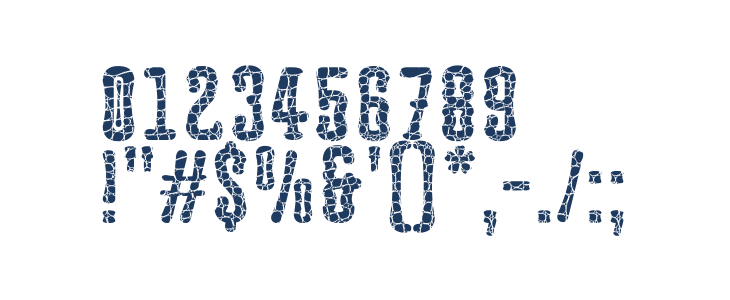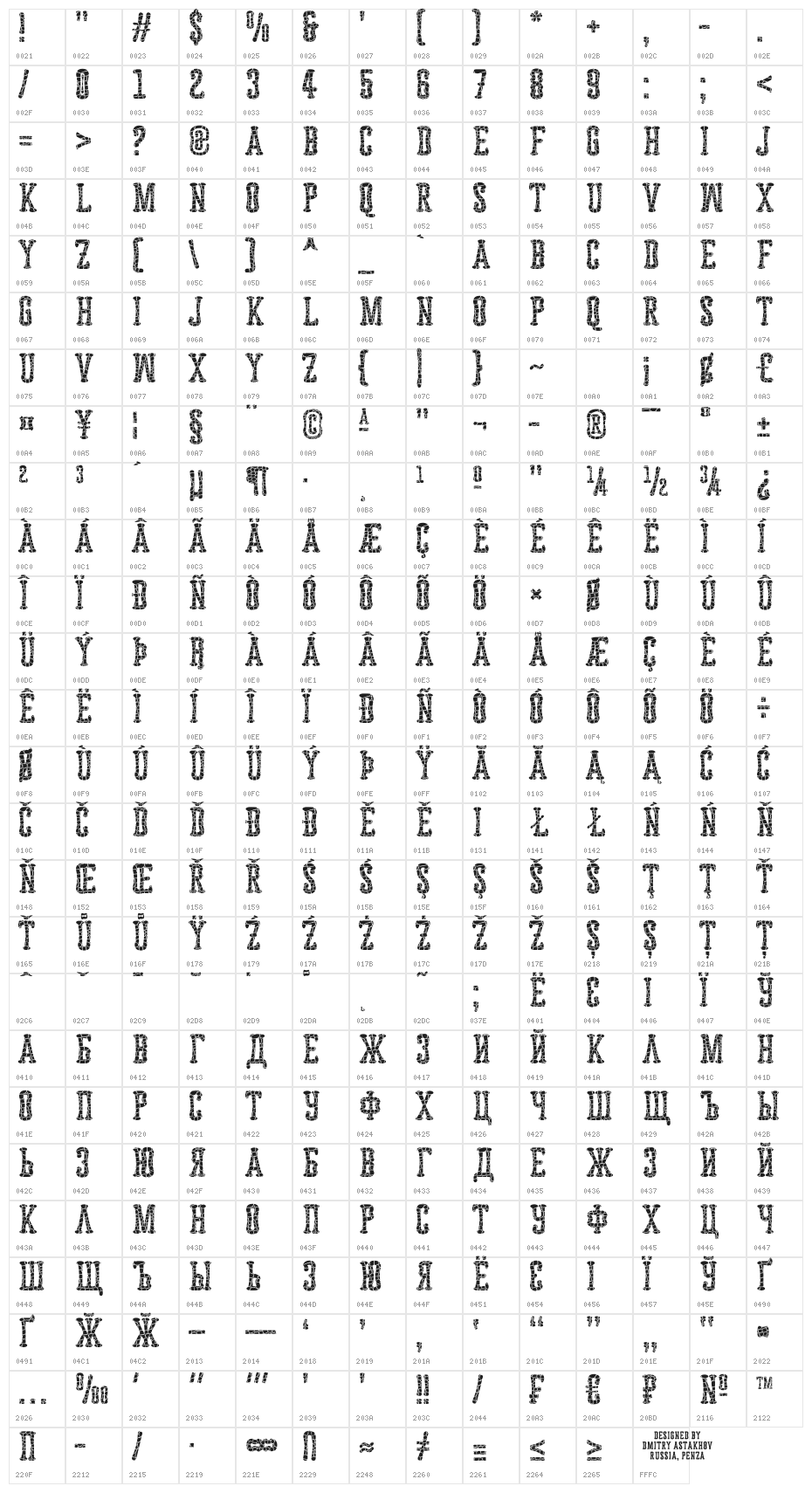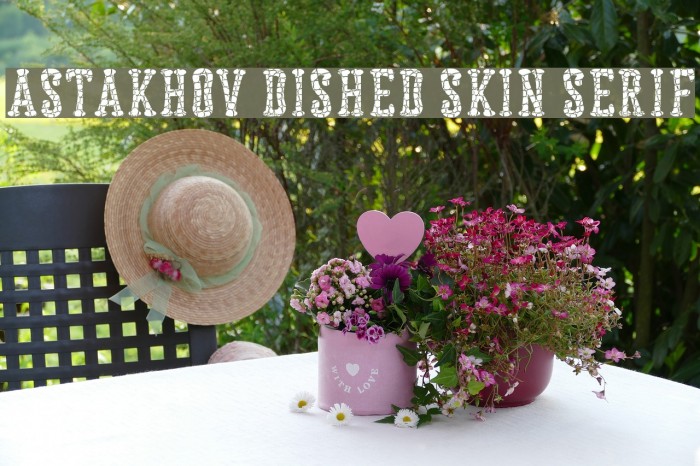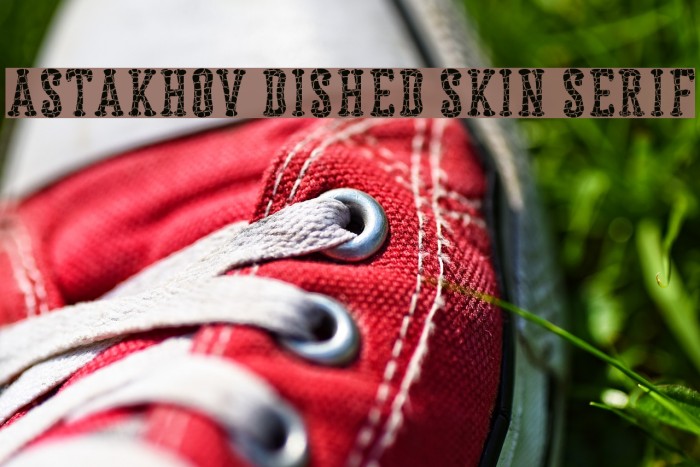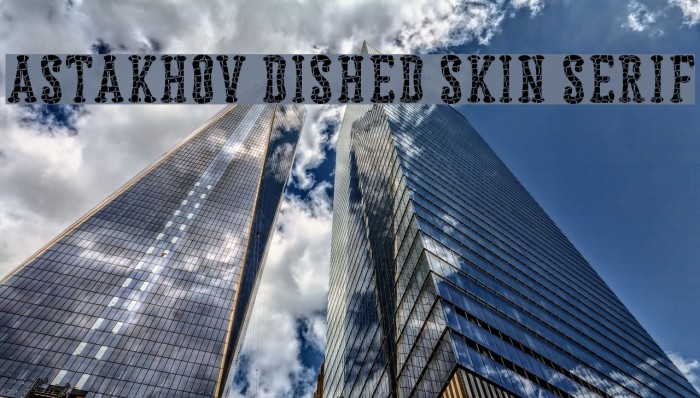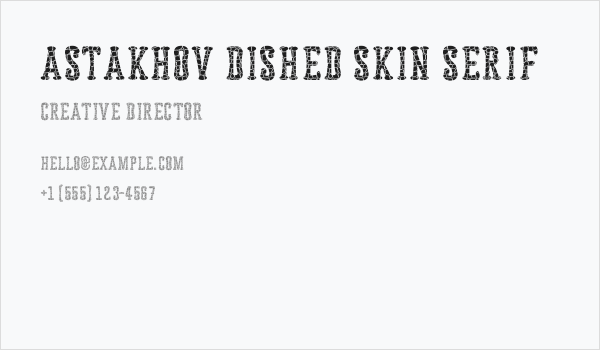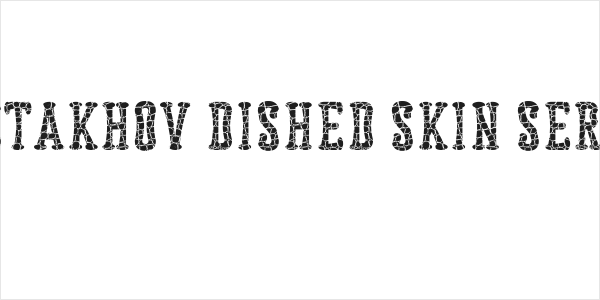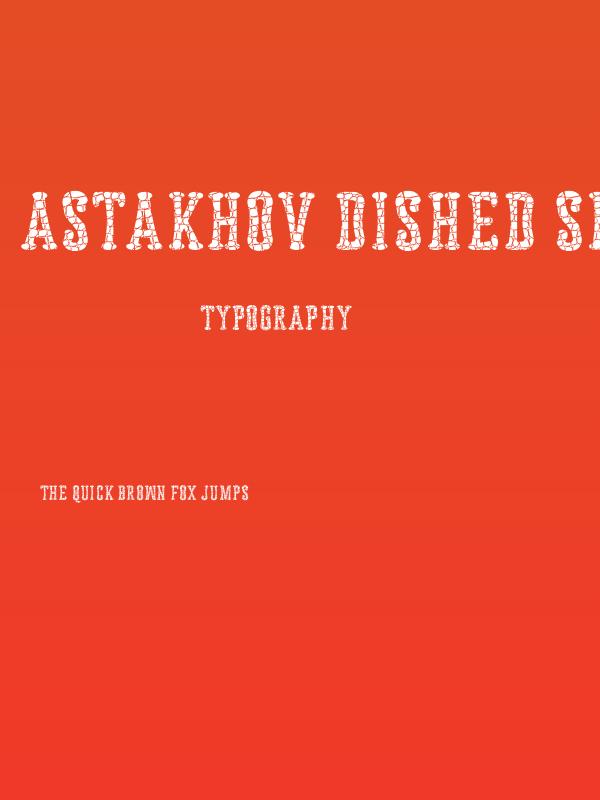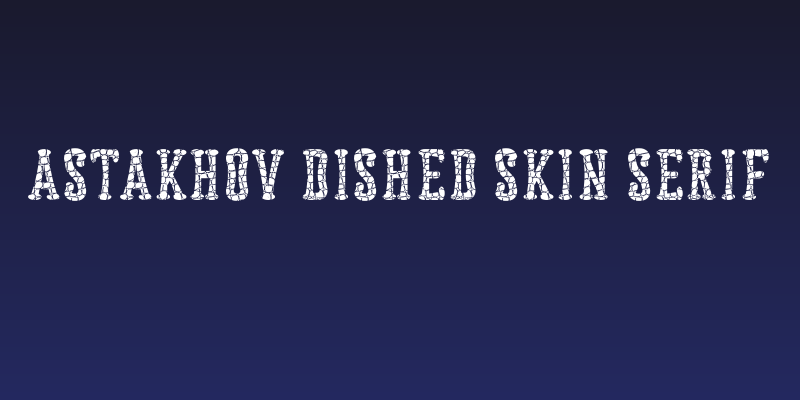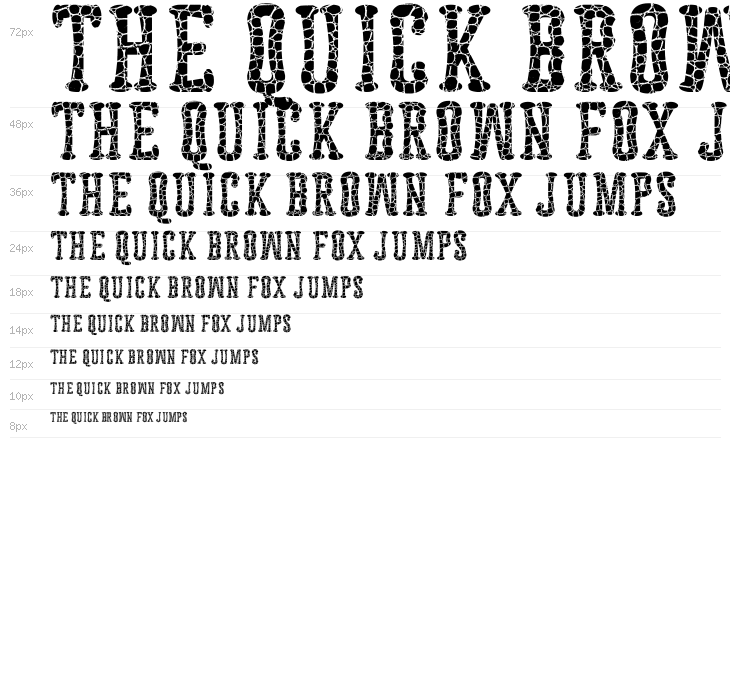
Astakhov Dished Skin Serif Font
Astakhov Dished Skin Serif Description
This font features a unique, textured design that resembles a cracked or dished surface, giving it a distinctive and artistic appearance. The characters are bold and have a serif style, with each letter displaying a pattern that adds a sense of depth and complexity. The uppercase and lowercase letters maintain a consistent style, with numbers and special characters following the same textured theme. This font stands out due to its decorative nature, making it suitable for projects that require a bold and eye-catching typeface.
| Proposed Projects | Ideal for artistic posters, album covers, branding materials, and any project that requires a bold, decorative typeface. |